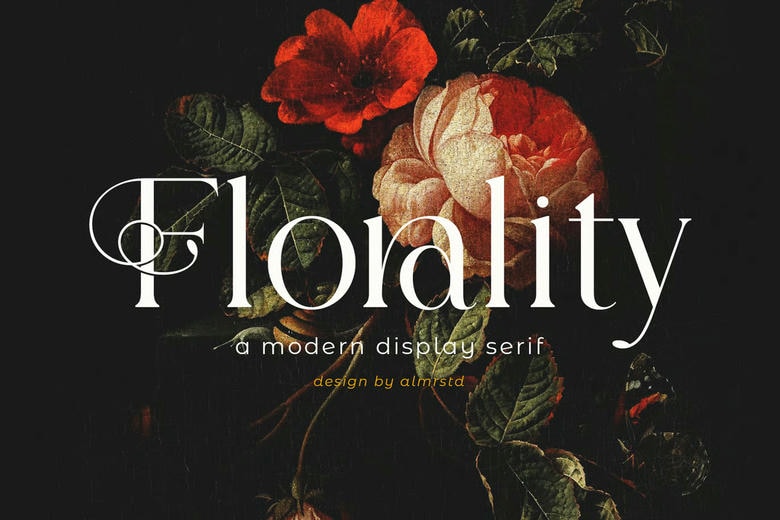
Florality Font
Florality is a modern display serif font, This type of font is very suitable for your various needs such as branding projects, logos, social media posts, advertisements, labels, product packaging, photography, wedding designs, watermarks, invitation product designs, stationery, and any project.
Florality Serif Font